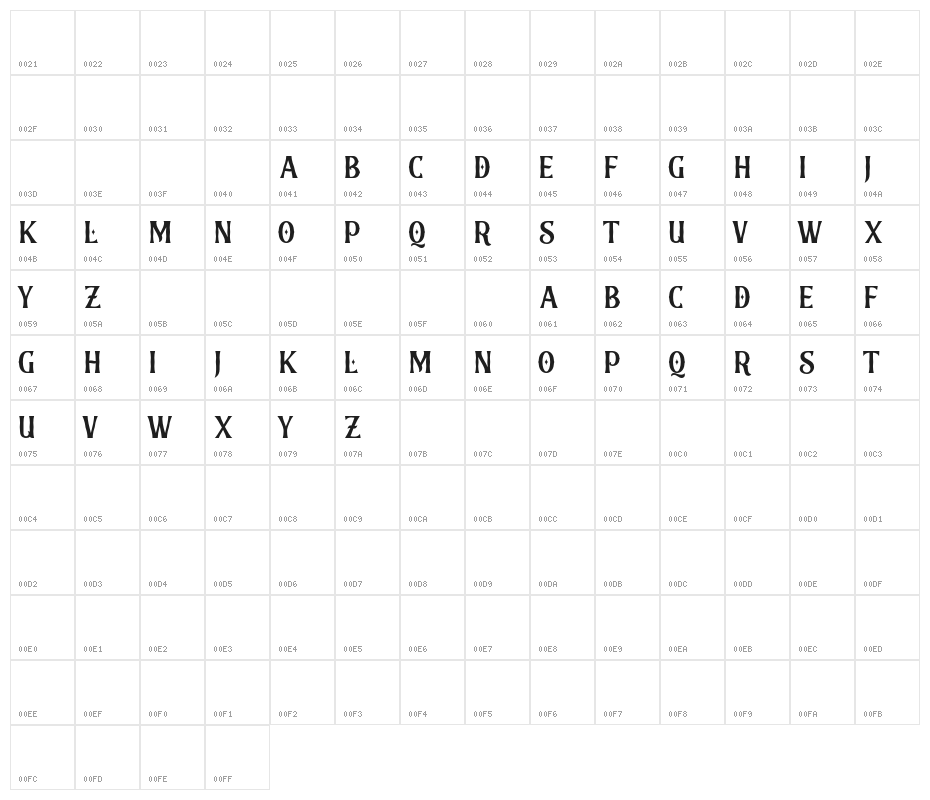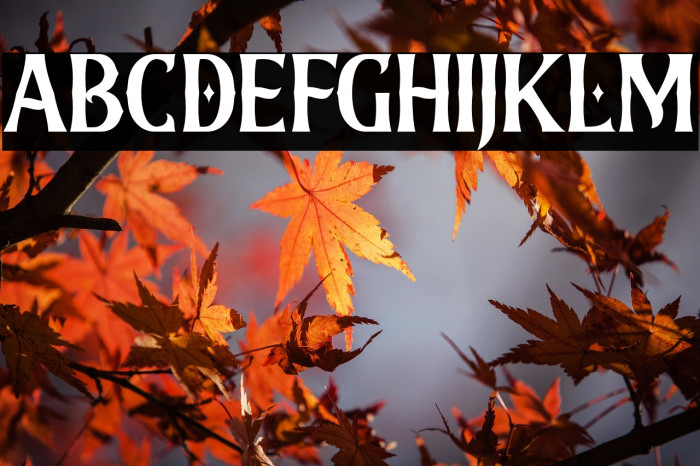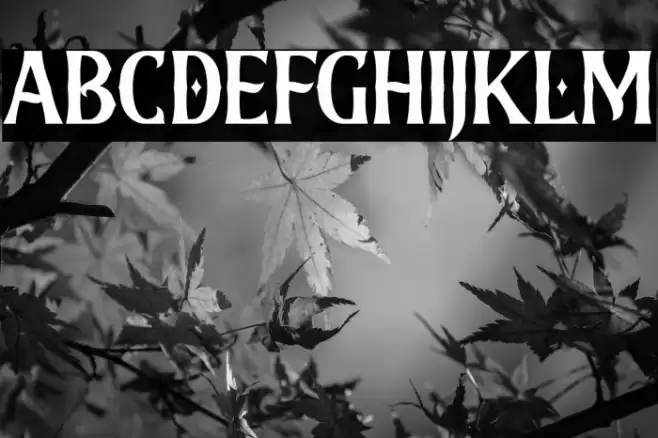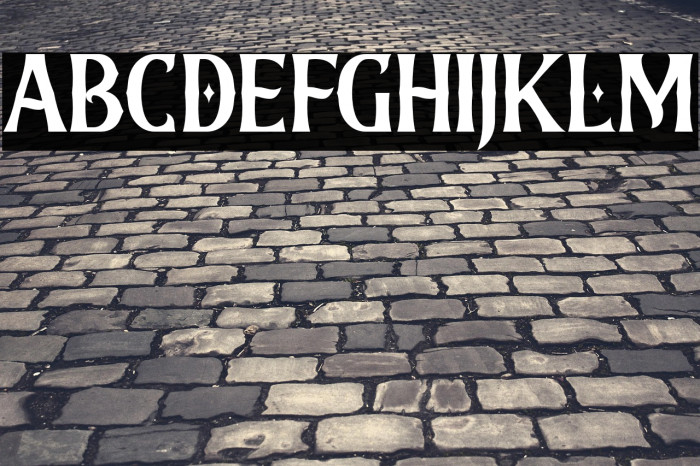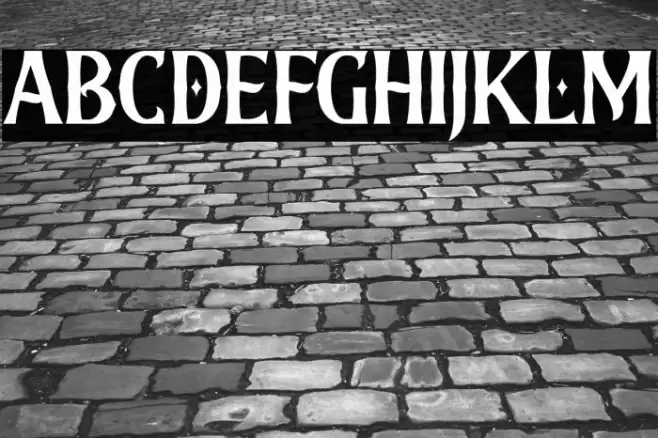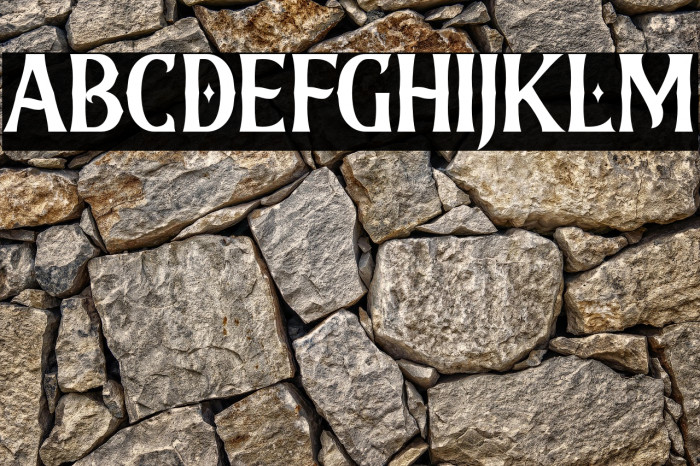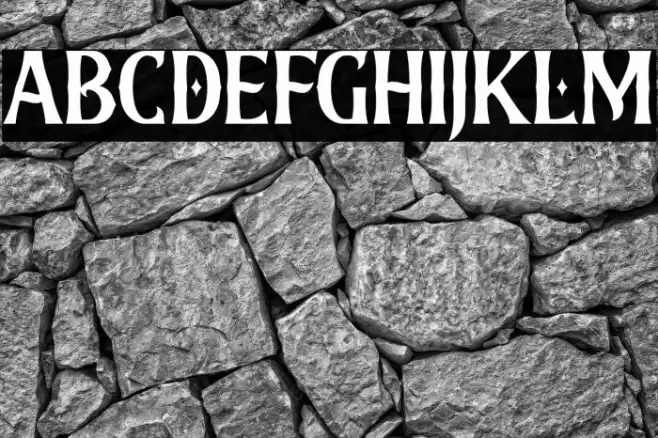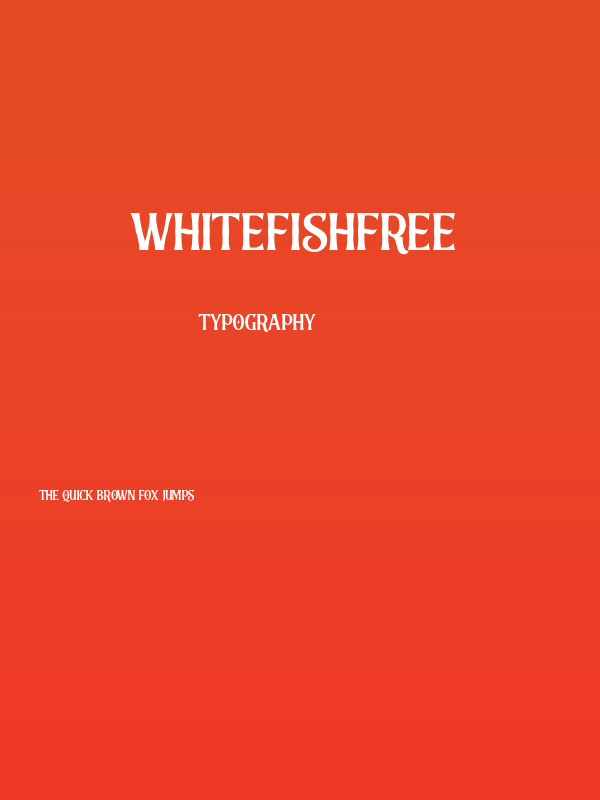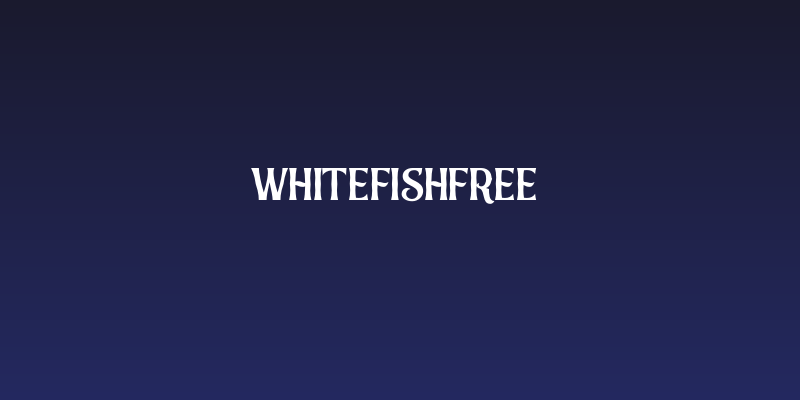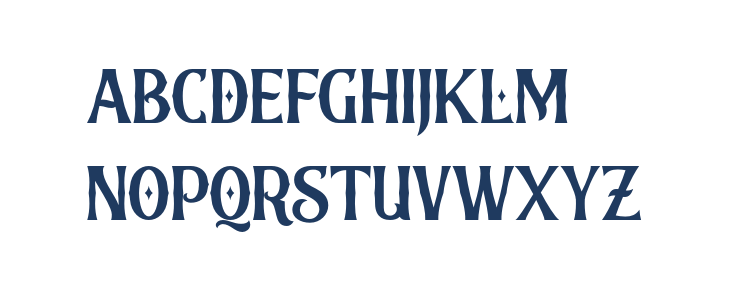
WhitefishFREE Font
WhitefishFREE Description
This font features a bold and striking design with a decorative flair. The characters are crafted with a unique blend of sharp edges and smooth curves, creating a dynamic and eye-catching appearance. The uppercase letters exhibit a distinct style with elongated vertical strokes and intricate detailing, particularly noticeable in letters like 'Q' and 'R'. The overall aesthetic is reminiscent of medieval or fantasy themes, making it ideal for projects that require a touch of elegance and drama. The font's boldness ensures high visibility, while its decorative elements add a layer of sophistication.
| Proposed Projects | Ideal for fantasy-themed designs, book covers, posters, and branding that requires a dramatic and elegant touch. |